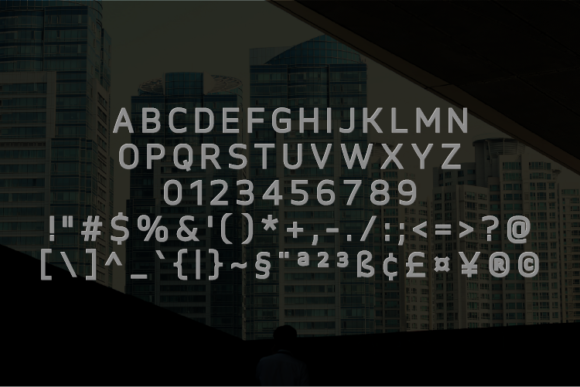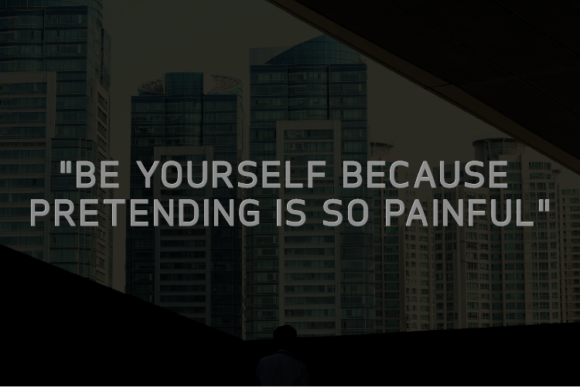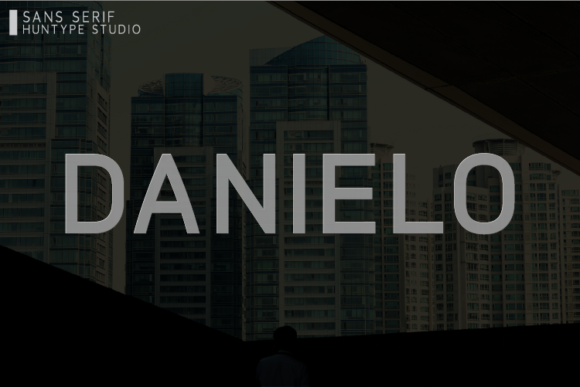
Introducing Danielo Font: A Simple yet Powerful Sans Serif Font
Are you a designer or crafter looking for a font that can elevate your creative projects? Look no further than Danielo Font, a simple and round lettered sans serif font that is versatile and easy to use. In this article, we’ll explore the features and benefits of Danielo Font, and show you how it can make your projects stand out.
The Characteristics of Danielo Font
Danielo Font is a sans serif font, which means it doesn’t have the small lines or flourishes that are commonly found at the ends of letters. This gives it a clean and modern look that is perfect for a wide range of projects. The font is also characterized by its round letters, which give it a friendly and approachable feel.
One of the key benefits of Danielo Font is its simplicity. The font is easy to read and understand, making it perfect for use in body text, headings, and titles. It’s also highly versatile, and can be used in a wide range of projects, from digital media to print materials.
The Benefits of Using Danielo Font
So why should you choose Danielo Font for your next project? Here are just a few of the benefits of using this powerful font:
- Easy to read: Danielo Font is highly legible, making it perfect for use in body text and other applications where readability is key.
- Versatile: The font can be used in a wide range of projects, from digital media to print materials, and can be easily matched to a variety of design styles.
- Modern look: The clean and simple design of Danielo Font gives it a modern look that is perfect for contemporary design projects.
How to Use Danielo Font in Your Projects
Danielo Font is incredibly easy to use, and can be incorporated into a wide range of projects. Here are a few ideas to get you started:
- Digital media: Use Danielo Font in your website, blog, or social media graphics to add a modern and professional touch.
- Print materials: The font is perfect for use in print materials, such as brochures, flyers, and business cards.
- Crafting projects: Danielo Font can be used in a variety of crafting projects, such as card making, scrapbooking, and DIY signs.
Tips for Getting the Most Out of Danielo Font
Here are a few tips for getting the most out of Danielo Font:
- Experiment with different sizes: Danielo Font looks great in a variety of sizes, from small body text to large headings.
- Pair it with other fonts: The font pairs well with a variety of other fonts, so don’t be afraid to experiment with different combinations.
- Use it consistently: To get the most out of Danielo Font, use it consistently throughout your project.
Danielo Font is a simple yet powerful sans serif font that is perfect for a wide range of projects. Its clean and modern design makes it easy to read and understand, while its versatility makes it easy to use in a variety of applications. Whether you’re a designer or crafter, Danielo Font is a great choice for your next project. So why not give it a try and see how it can make your projects stand out?